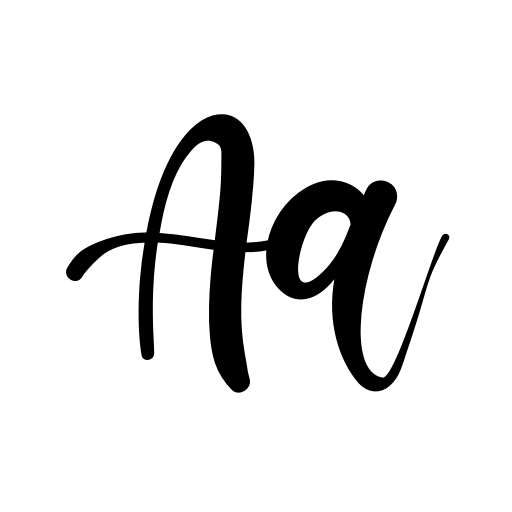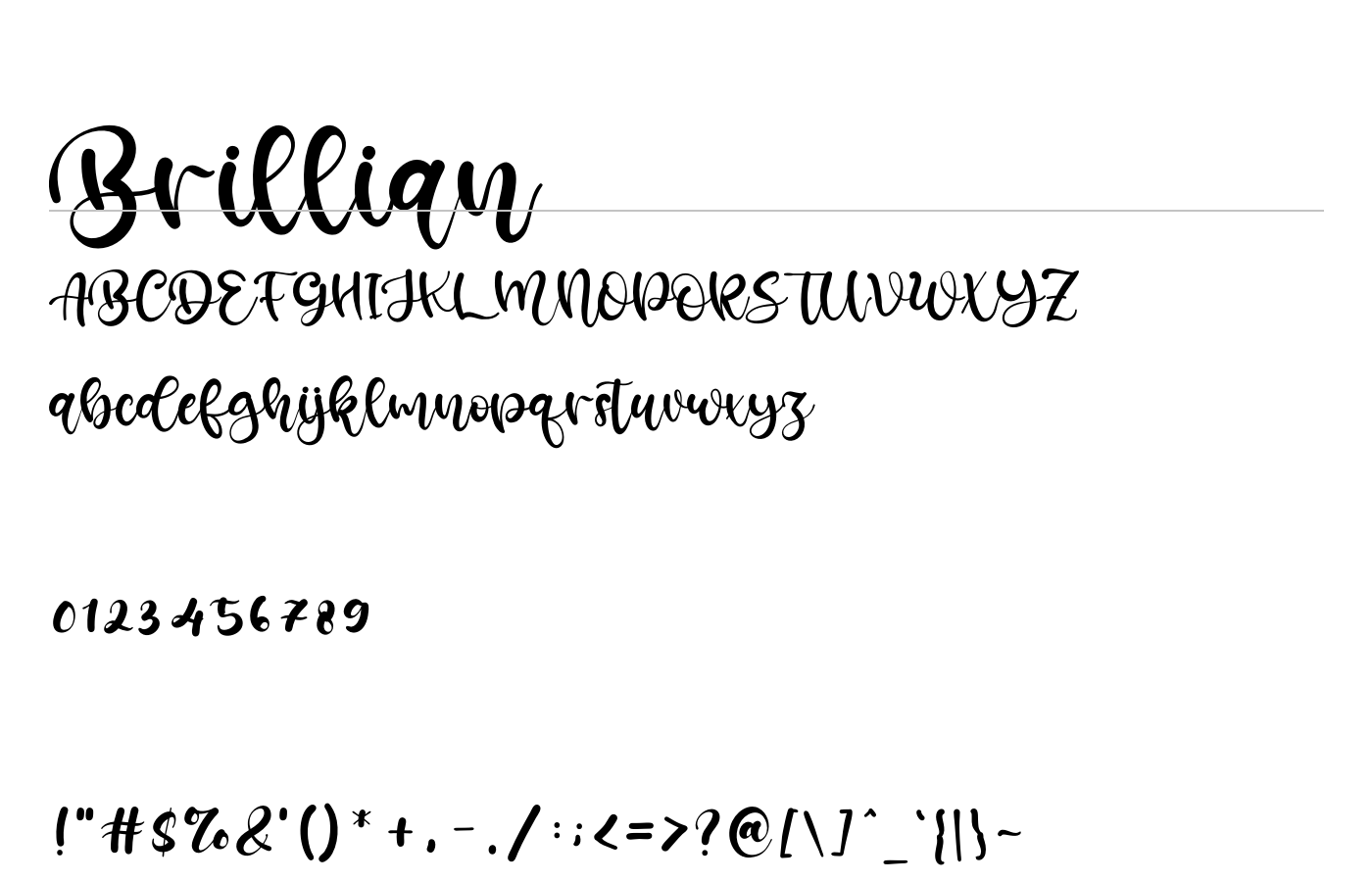
Brillian is a lively script font with a playful and elegant charm, featuring smooth, flowing strokes and stylish, organic letterforms. Its moderate weight and slightly condensed, high x-height design make it perfect for adding a friendly, handcrafted feel to invitations, branding, or social media graphics. This font works well where a warm, approachable, yet sophisticated look is desired, such as in fashion logos, greeting cards, or creative headlines.
Brillian Font
About Brillian Font